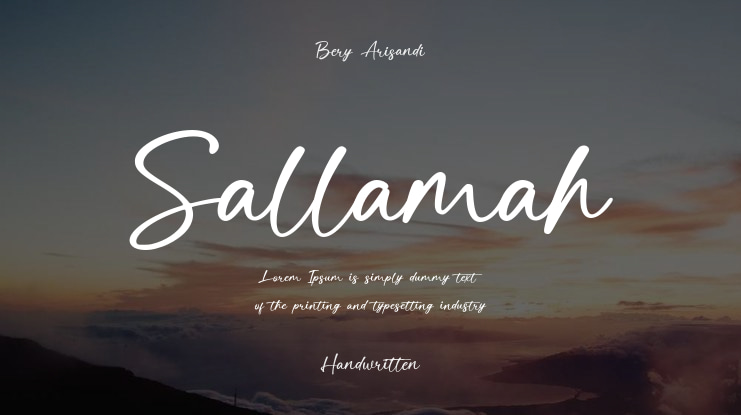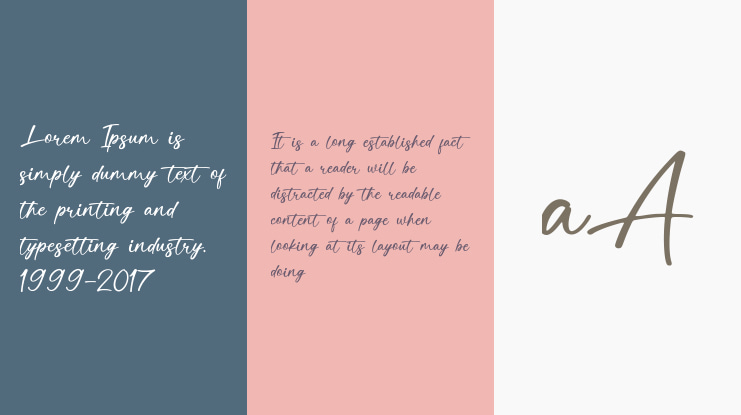
Sallamah Font
INTRODUCING Sallamah a Casual Handwritten Font
Sallamah is a casual handwritten font that flows effortlessly, just like a love letter written by hand.